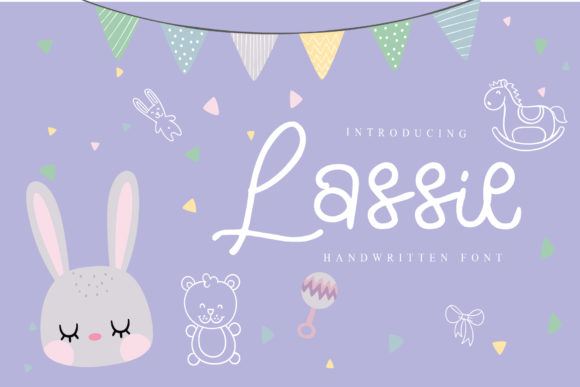
Introduction to Lassie Font
Enter the Lassie Font – a charming, handwritten font that’s sure to add a touch of playfulness and authenticity to any project. With its high-quality design and transparent background, this font is a valuable addition to any designer’s toolkit.
Whether you’re working on a children’s activity, a school project, or a creative endeavor of your own, the Lassie Font is a free download that’s sure to make your designs stand out. In this article, we’ll take a closer look at this amazing font and explore its many uses.
Key Features of Lassie Font
- High-quality, bold, and playful font design ideal for creative projects.
- Transparent background, allowing for seamless integration with various design elements.
- Comes in 3 different font sizes, making it versatile for use in various creative projects.
- Unique characteristics include its bold and playful feel, making it perfect for branding, logos, and advertising materials.
Honest Review: Lassie Font
As a designer, I’m always on the lookout for high-quality design resources to elevate my creative projects. The Lassie Font is one such find that caught my attention. This free download is perfect for those seeking a unique, rustic feel for their designs.
- ✨ Unique and playful design that adds a touch of whimsy to any project.
- ✨ Highly legible, making it perfect for body text or headings.
However, I do have a few concerns:
- ⚠️ The font’s design may not be suitable for more formal or corporate projects, as it has a somewhat casual feel.
Overall, I’m impressed with the Lassie Font’s unique design and high quality. While it may not be suitable for every project, it’s a valuable addition to any designer’s toolkit, especially for creative projects that require a playful touch.
The Lassie Font is ideal for a variety of creative projects, including wedding invitations, business cards, and social media graphics. Its elegant and sophisticated design makes it perfect for formal events and professional presentations.